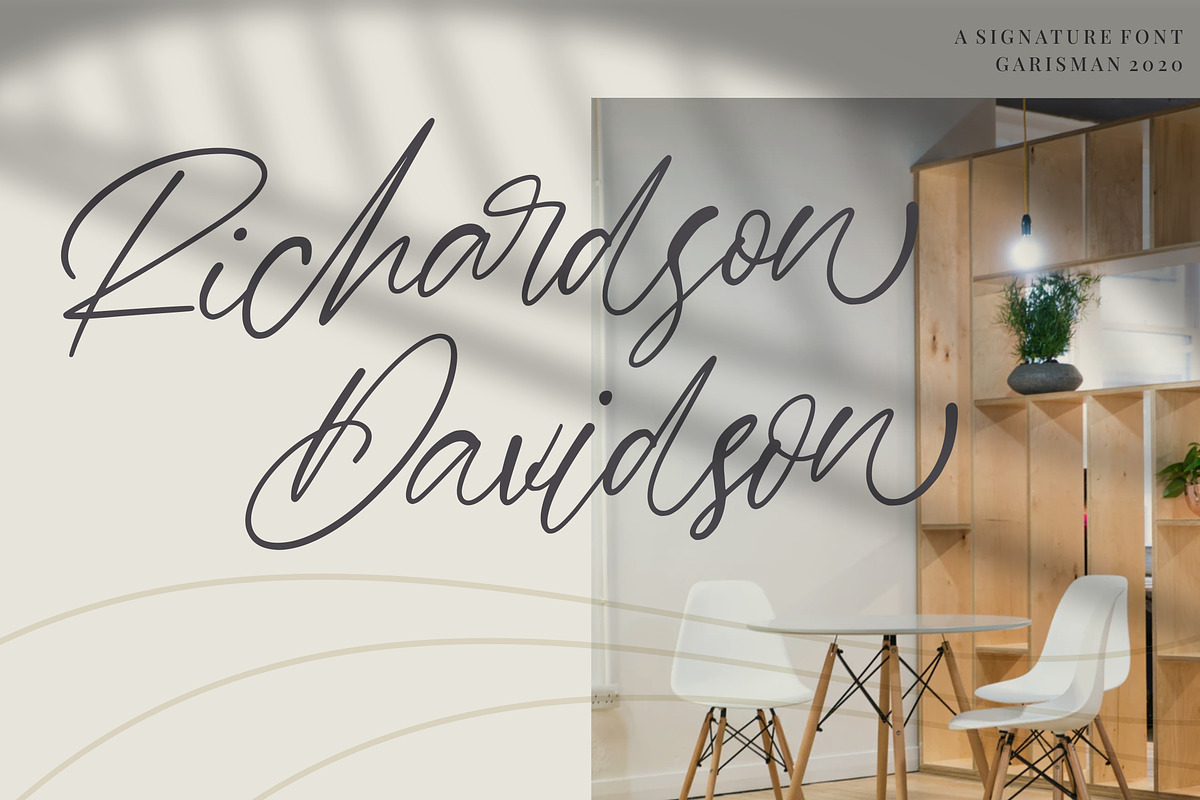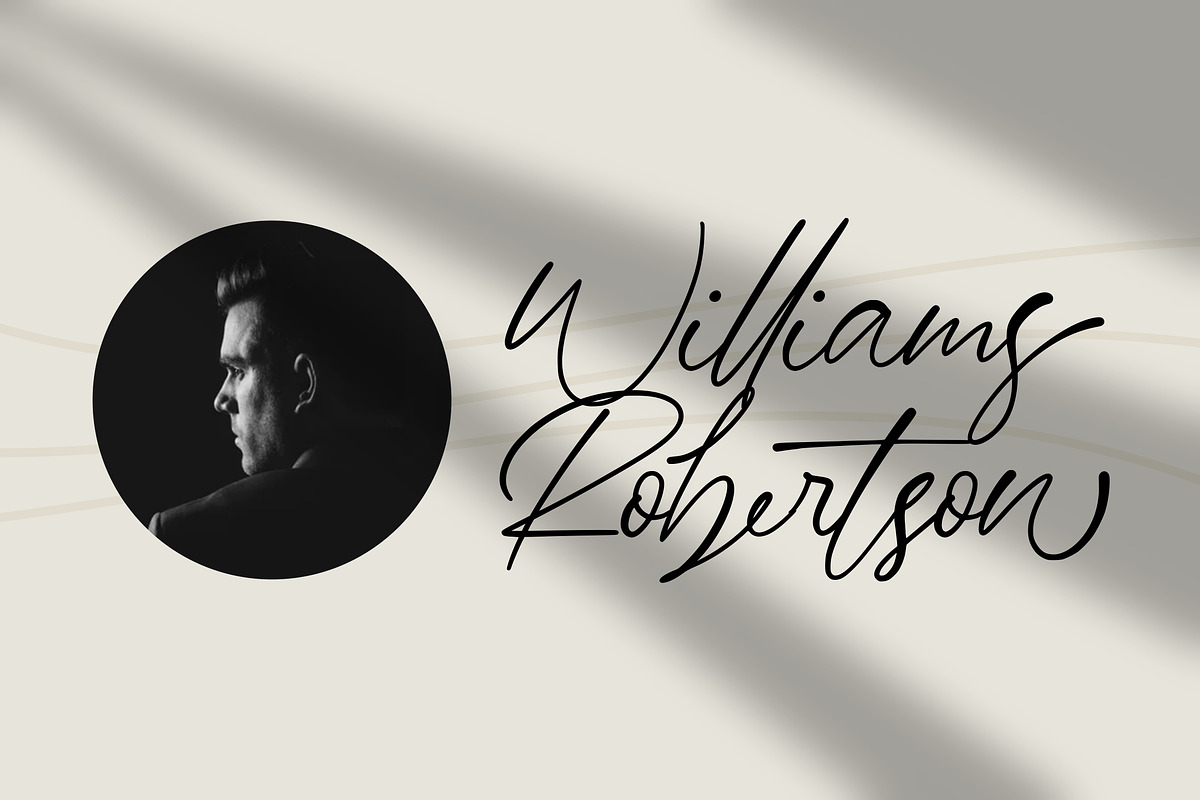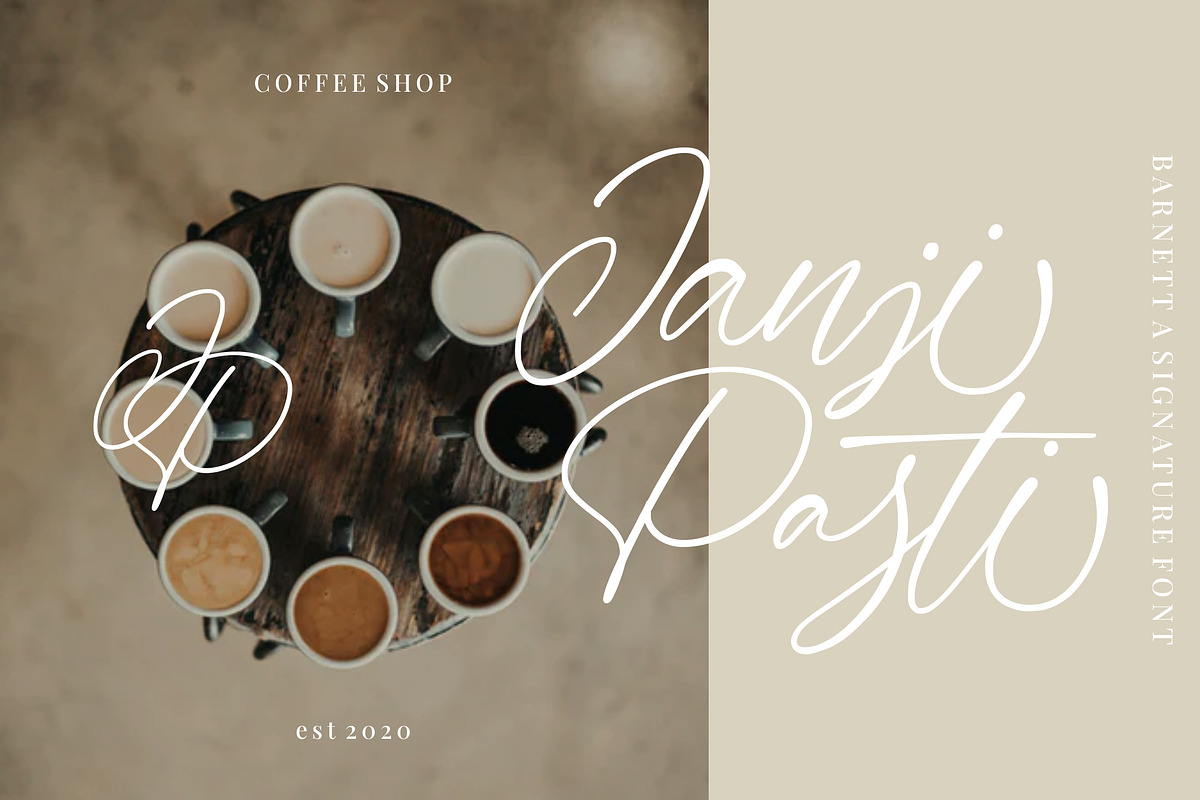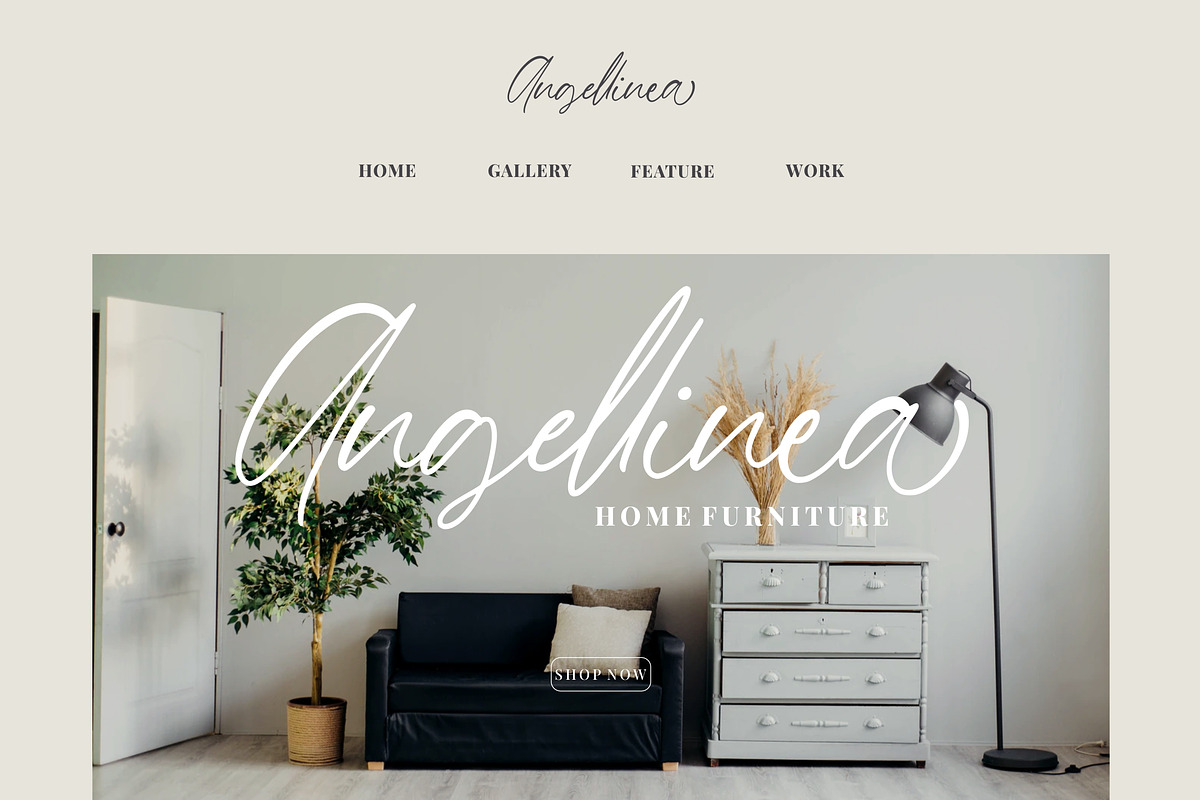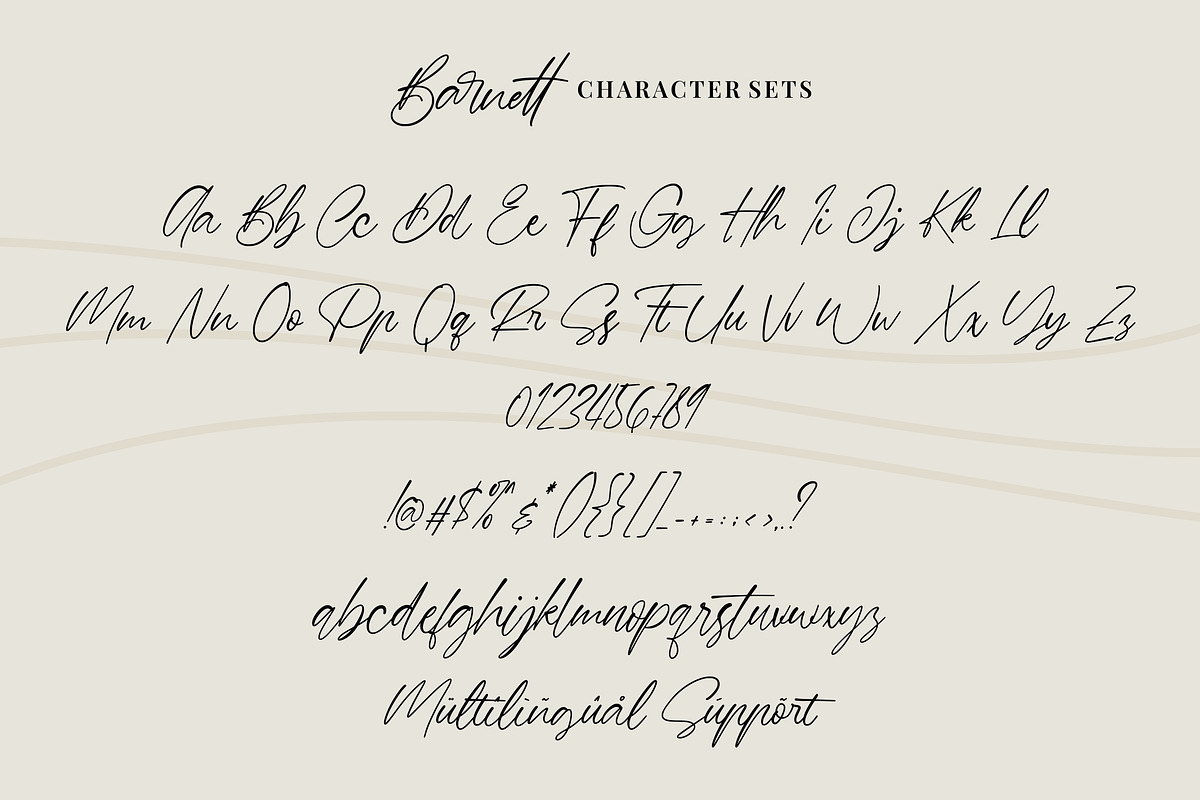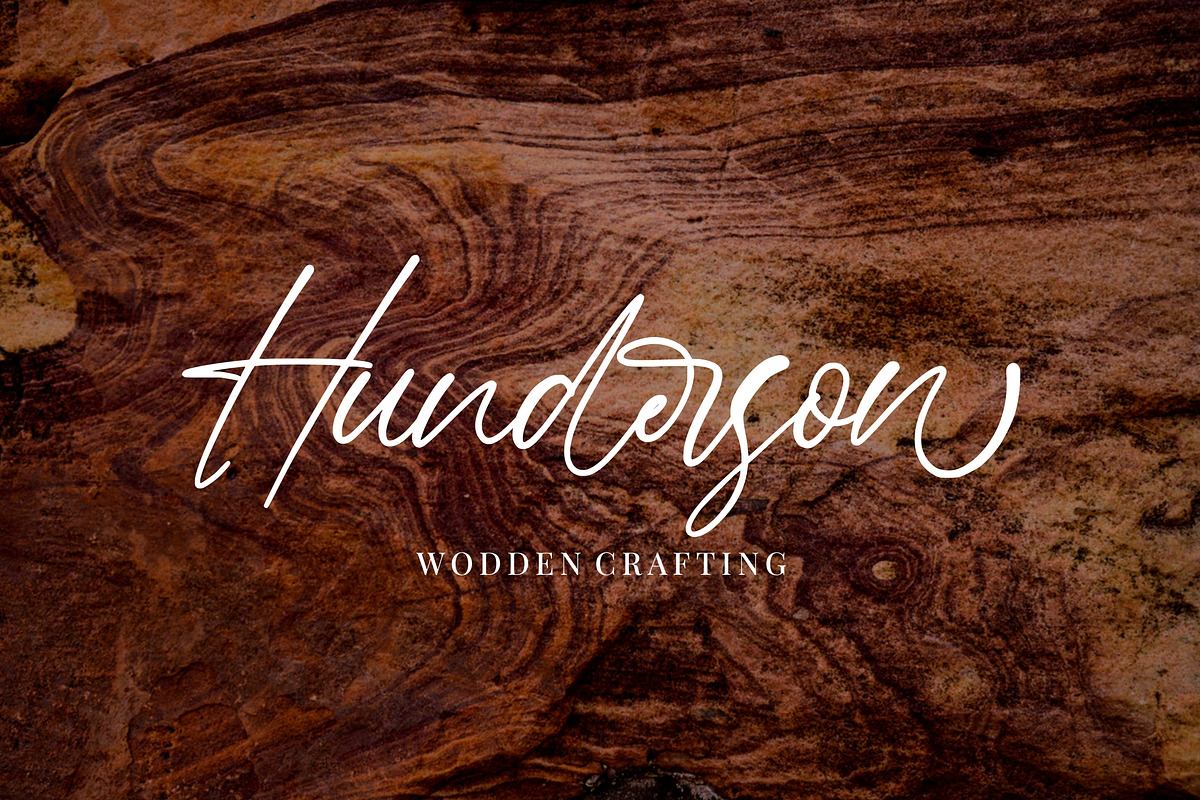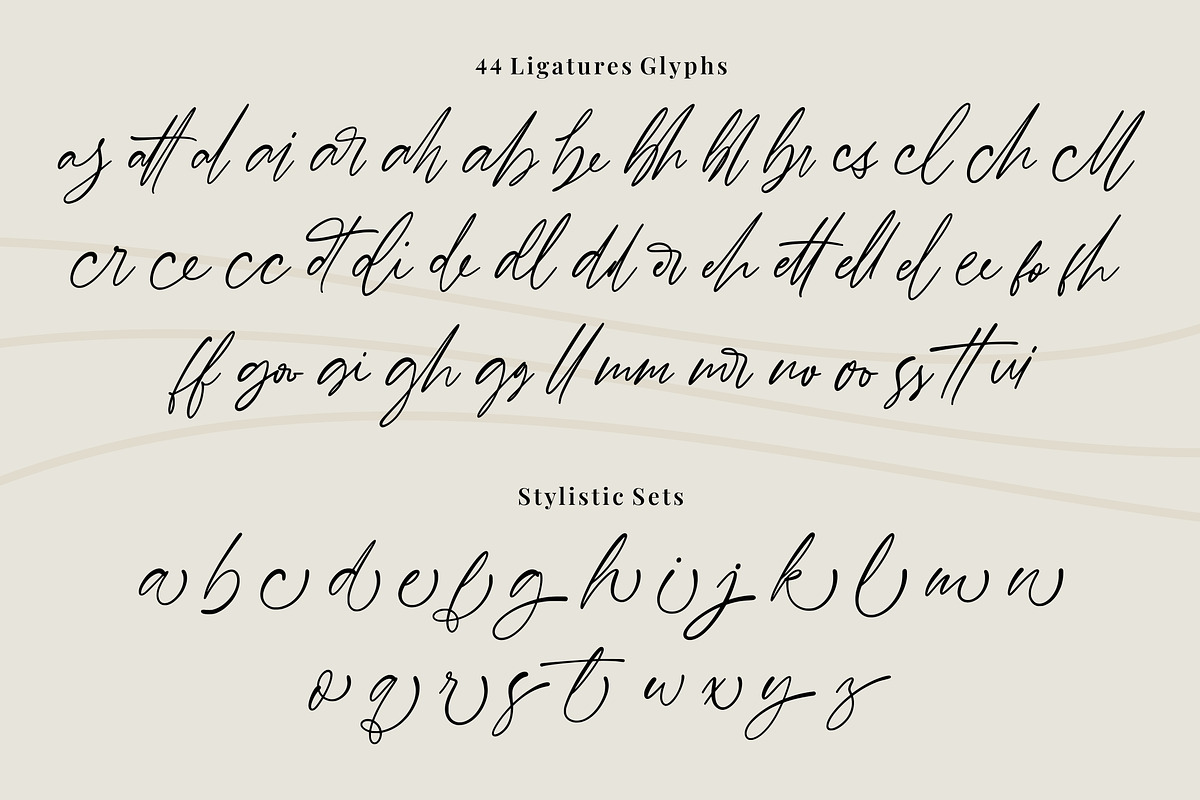
Barnett | New Signature Font
Barnett is a signature handwritten font with magical pressure. I hope this font perfect for creating signature logos and watermarks for a photography studio or wedding invitation, best for initial or branding logo signature. Made fully with love and uniqueness!! Barnett coast includes a full set of beautiful and natural handwritten uppercase and lowercase letters, numerals, a large range of punctuation and ligatures.
What the features Barnett :
Ligature and Opentype features (Stylistic Set)
Versatile for poster, logotype, labels, book cover